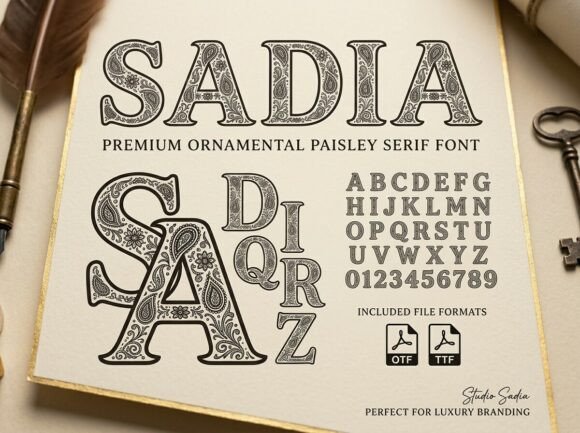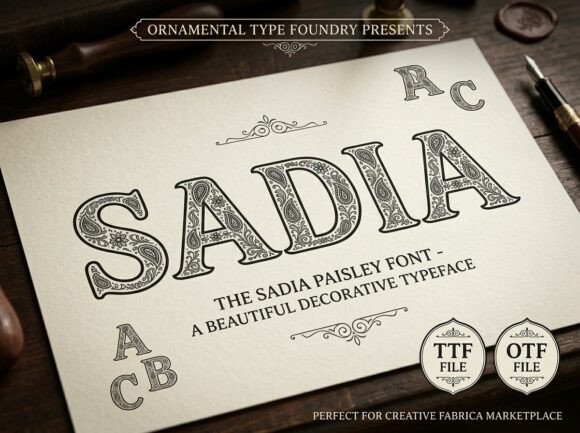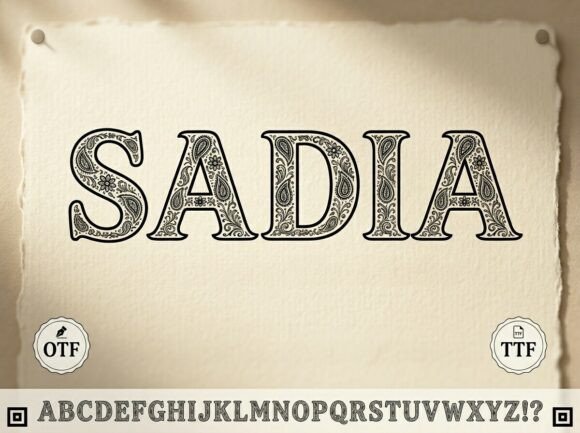
Introduction to Sadia Font
Discover the intricate beauty of Sadia, a stunning decorative typeface that blends classic serif structures with the exquisite detail of traditional paisley patterns.
Presented by Ornamental Type Foundry, this font is a masterpiece of craftsmanship, designed to bring a touch of luxury and vintage charm to your creative canvas Each letter is an ornate illustration in itself, featuring delicate floral swirls, teardrop motifs, and fine-line etching that captures the eye.